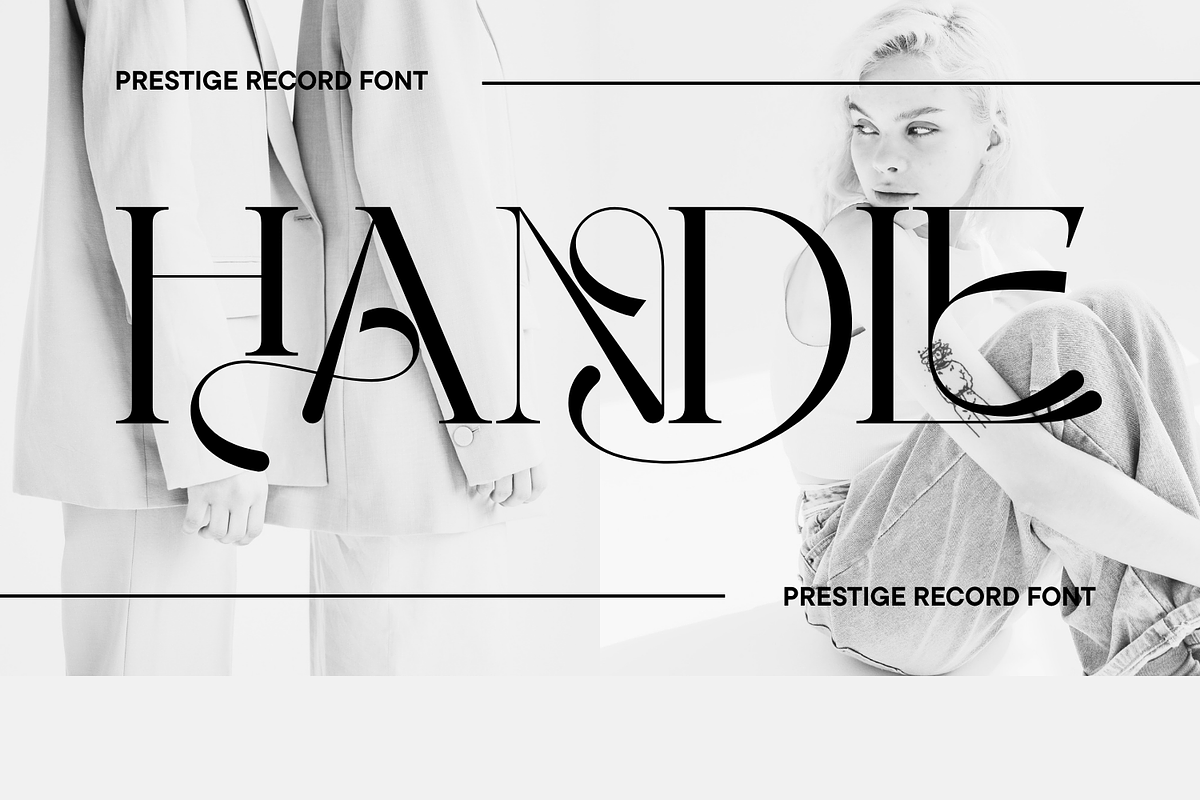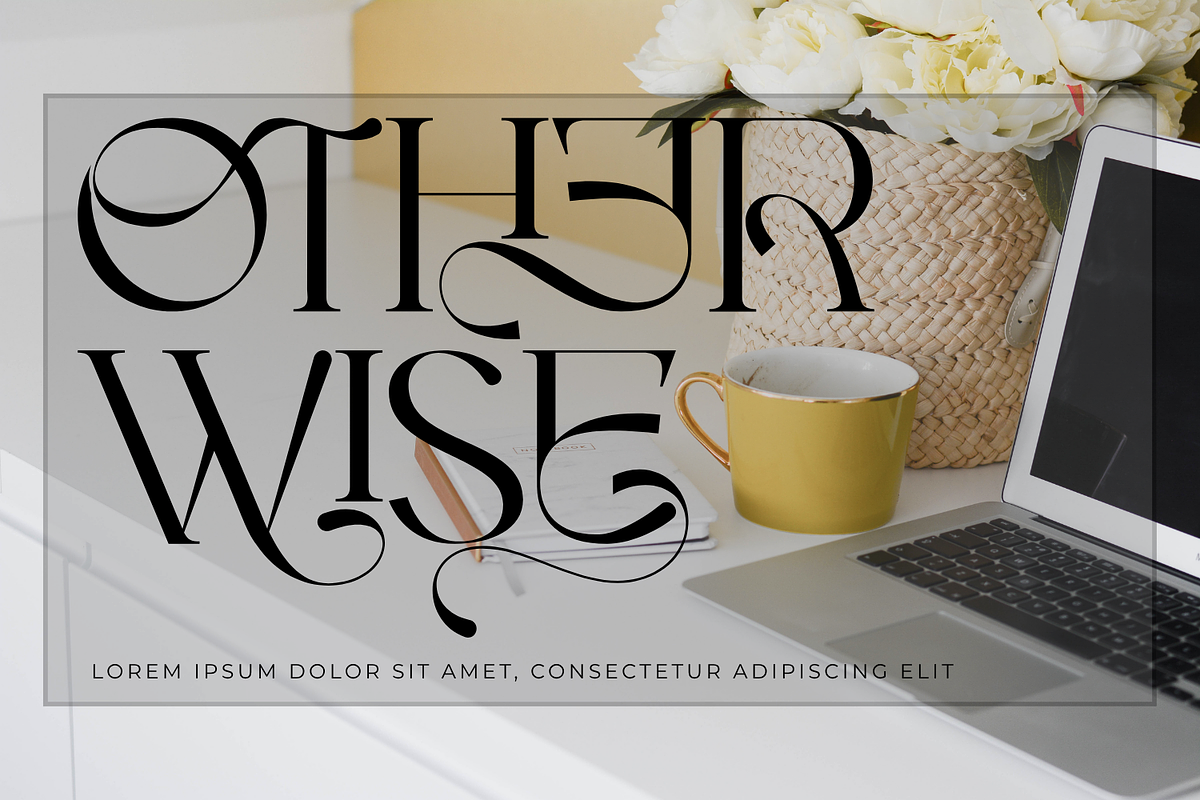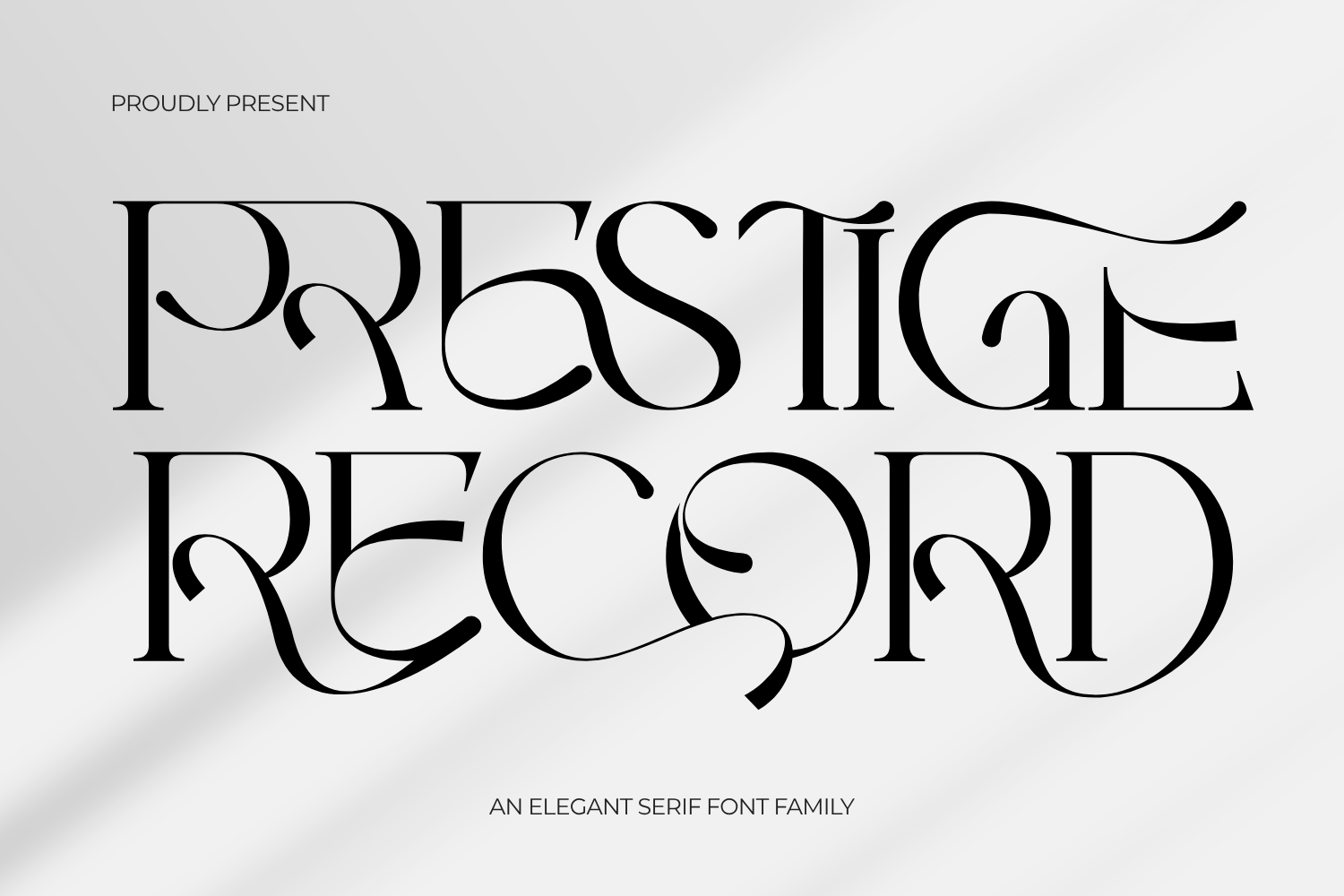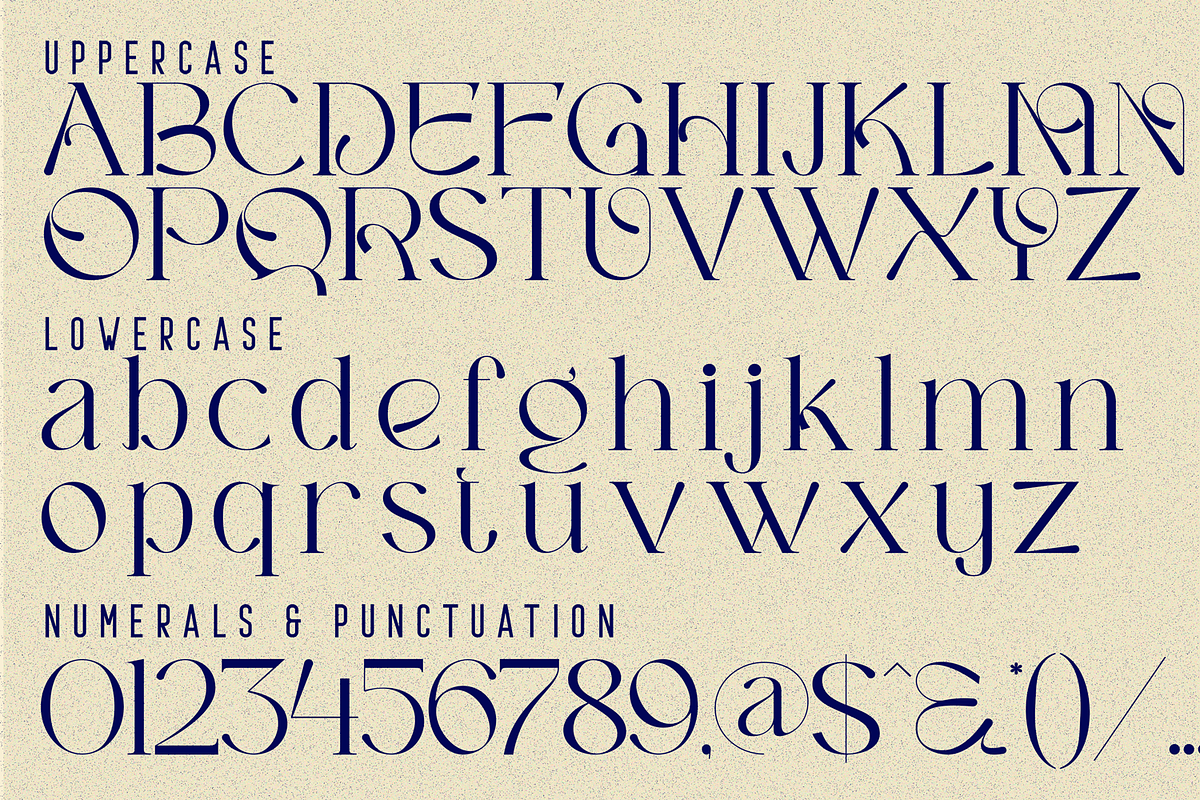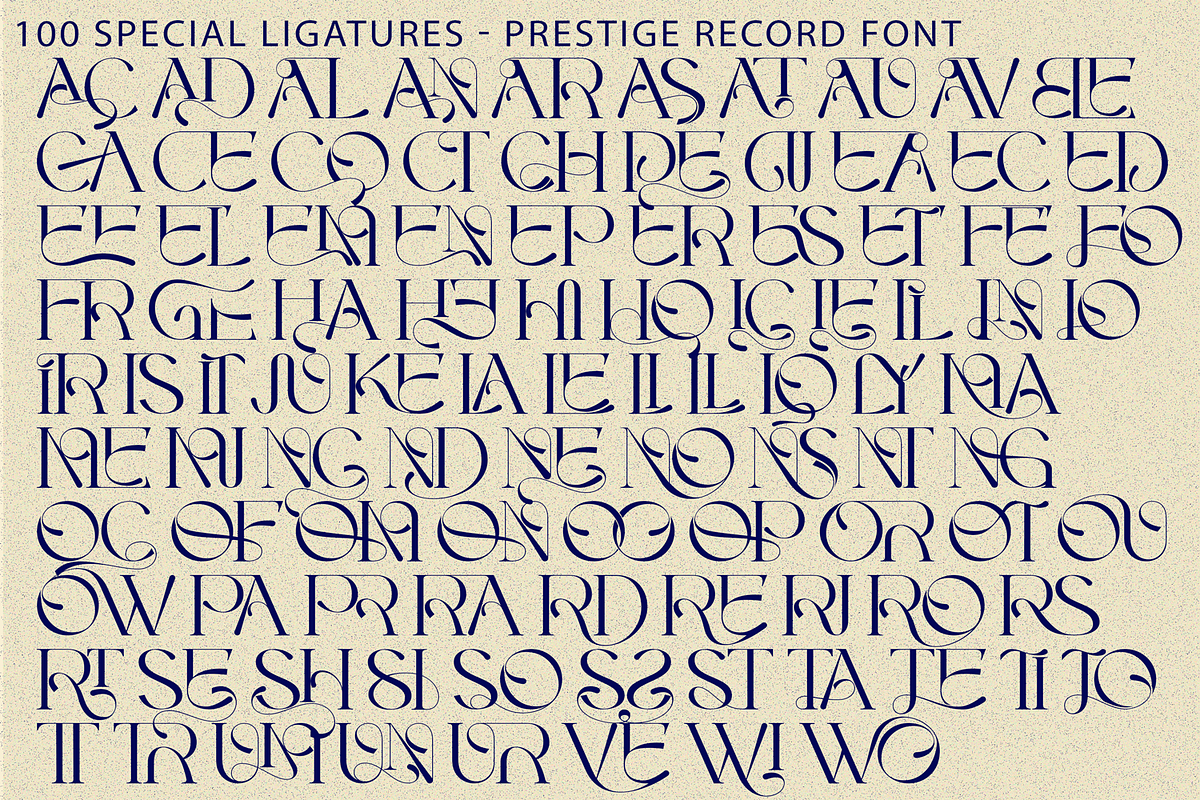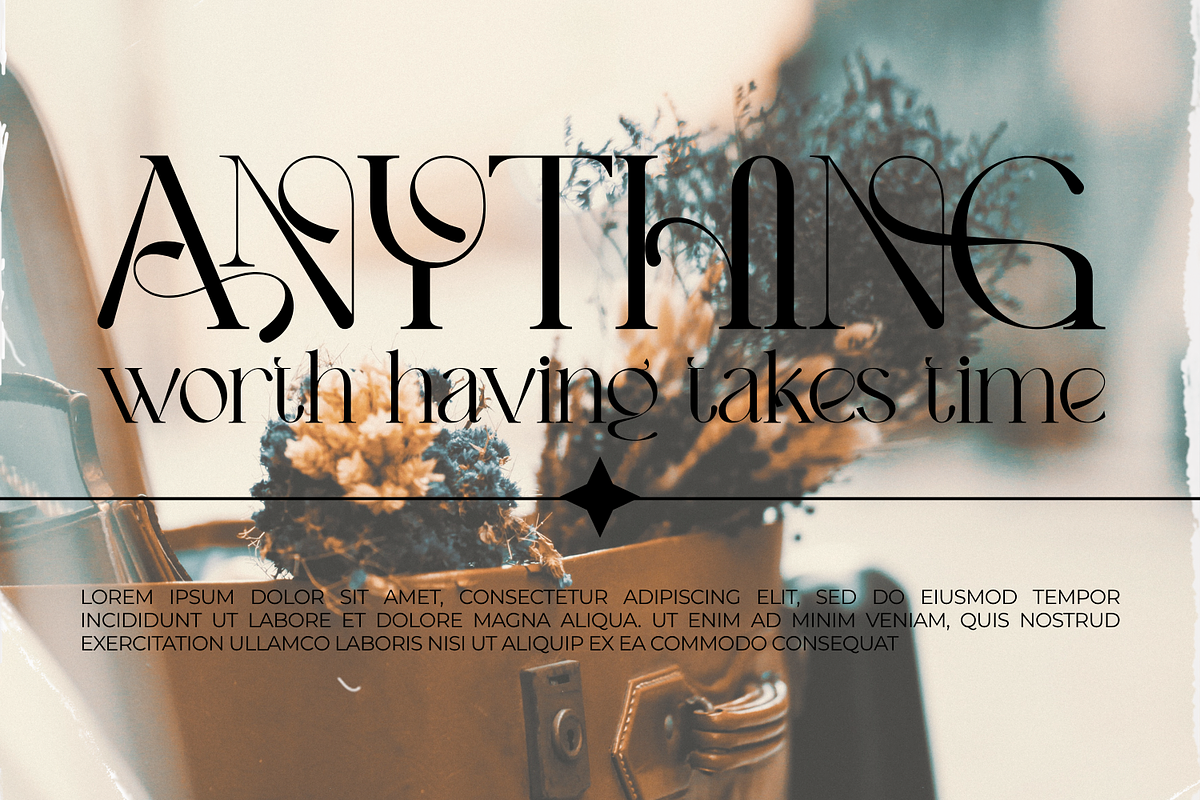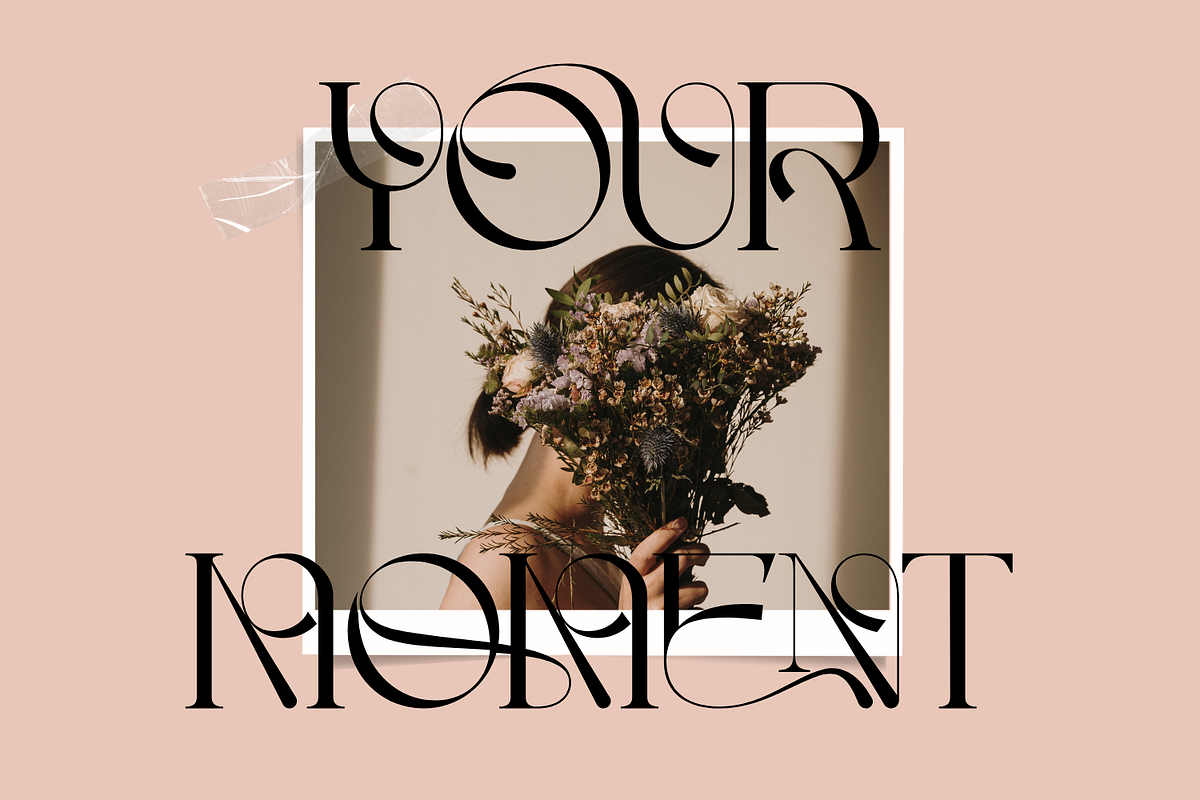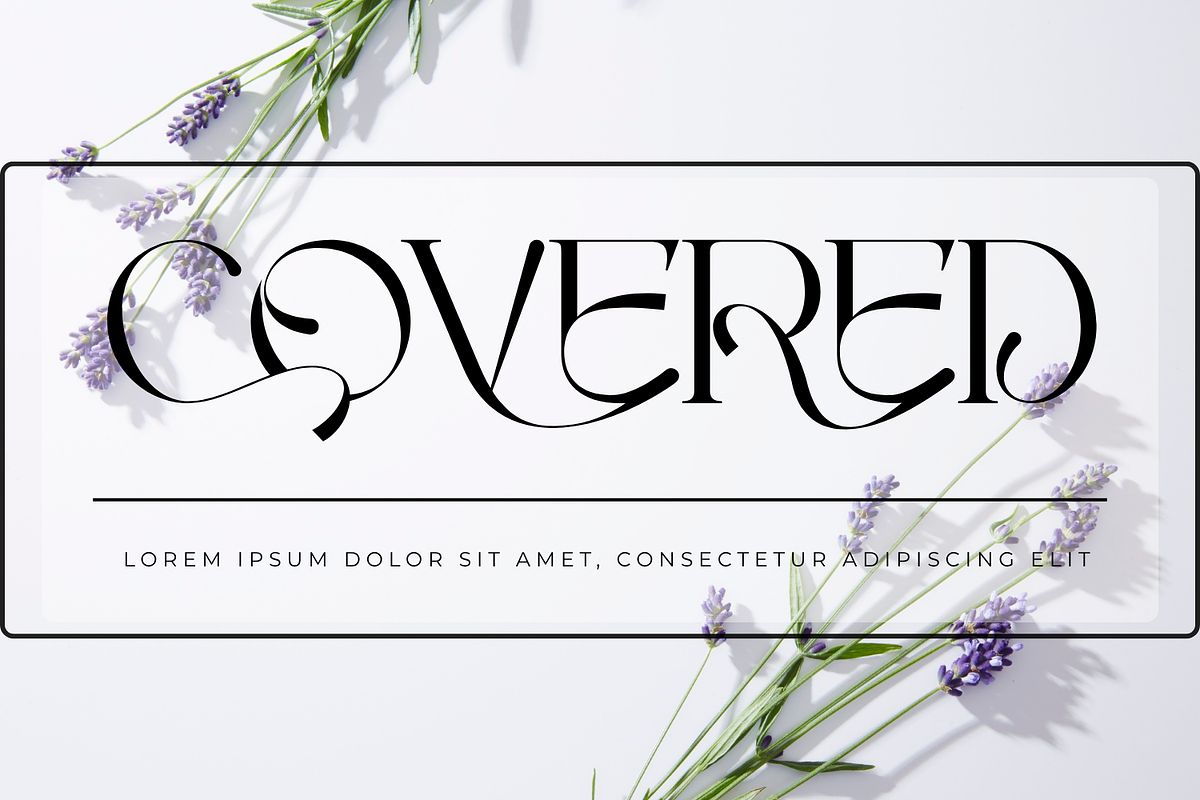
PRESTIGE RECORD - MODERN LUXURY FONT
PRESTIGE RECORD - MODERN LUXURY FONT – Modern Luxury Editorial & Decorative Swash Serif, an exquisitely crafted display serif font designed to bring high-fashion sophistication, Art Nouveau elegance, and editorial glamour to your creative artwork. Defined by its striking high-contrast letterforms, sweeping swashes, and intricate looping flourishes, this typeface effortlessly turns standard headlines into bespoke typographic art.
Each character in PRESTIGE RECORD features graceful curves and stylized inner counters that weave rhythmically together. Engineered for commanding titles and luxury visual identities, it is the ultimate choice for boutique branding, high-end editorial layouts, perfume and wine packaging, luxury cosmetics, wedding stationery, and fashion logos. Elevate your aesthetic designs with the timeless romance and prestige of PRESTIGE RECORD.
🔤Features:
Uppercase & Lowercase Letters
Around 100 Special Ligatures & Alternates
Accented Characters for multilingual support
🔤About 100 ligatures combined with Stylistic Alternates Font:
AC AD AL AN AR AS AT AU AV BE CA CE CH CO CT DE DI EA EC ED EE EL EM EN EP ER ES ET FE FO FR GE HA HE HI HO IE IC IL IN IO IR IS IT JU KE LA LE LI LL LO LY MA ME MI NC ND NE NG NO NT NS OC OF OM ON OO OP OR OT OU OW PA PR RA RD RE RI RO RS RT SE SH SI SO SS ST TA TE TH TI TO TR TT UM UN UR VE WI WO